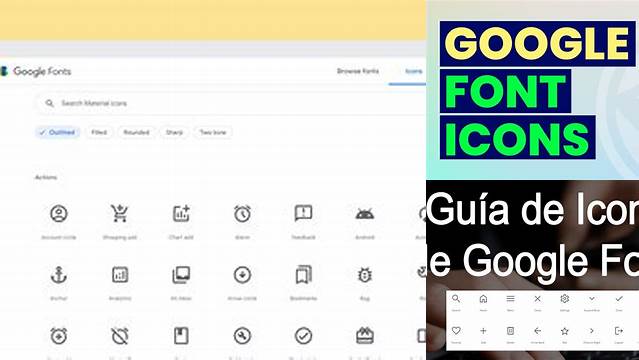
Google Fonts Icons: Easy Use With NPM
Hey guys! Ever wanted to add some slick icons to your web project but found the process a bit daunting? Well, you're in the right place! In this comprehensive guide, we'll dive deep into using Google Fonts Icons with NPM, making your workflow smoother and your website look fantastic. Google Fonts Icons are a fantastic resource, offering a vast library of icons that are easy to implement and customize. Using NPM (Node Package Manager) to manage these icons adds another layer of efficiency and control to your project. So, let's get started and explore how to make the most of Google Fonts Icons with NPM.
Why should you even bother with this? Well, imagine having access to thousands of icons right at your fingertips, all neatly packaged and ready to use in your web projects. No more hunting around for the perfect icon or dealing with messy SVG files. NPM makes it super easy to install, update, and manage these icons, keeping your project clean and organized. Plus, using Google Fonts Icons ensures that your icons look crisp and clear on any device, thanks to their scalable vector format. Ready to level up your icon game? Let's jump in!
What are Google Fonts Icons?
Before we get into the nitty-gritty of NPM, let's quickly recap what Google Fonts Icons are all about. Essentially, they are a collection of icons designed by Google, available for free use in your projects. These icons cover a wide range of categories, from basic UI elements to social media logos, making them incredibly versatile. What sets them apart is their design consistency and the fact that they are delivered as a web font. This means they scale perfectly without losing quality, ensuring your icons look sharp on any screen size. Think of them as the Swiss Army knife of icons – always reliable and ready for any task. Using Google Fonts Icons also means you're tapping into a well-maintained and frequently updated library, so you're always getting the latest and greatest icons.
Why Use NPM for Google Fonts Icons?
Now, why should you bother using NPM for your Google Fonts Icons? Good question! NPM is a package manager for Node.js, which might sound a bit techy, but trust me, it's a game-changer. It allows you to easily install, update, and manage project dependencies, including Google Fonts Icons. Instead of manually downloading and linking to the icon files, NPM handles all the heavy lifting for you. This means you can quickly add icons to your project with a simple command, and updating to the latest version is just as easy. Using NPM also helps keep your project organized and ensures that everyone working on the project is using the same versions of the icons. It's like having a personal assistant for your project dependencies, keeping everything in order and up-to-date.
Installing Google Fonts Icons Package
With your project set up, it's time to install the Google Fonts Icons package. This is where NPM really shines! In your terminal, make sure you're in your project directory, and then run the command npm install material-icons. This command tells NPM to download and install the material-icons package, which contains the Google Fonts Icons. NPM will automatically add the package to your project's dependencies, so you don't have to worry about manually managing the files. Once the installation is complete, you'll see a node_modules folder in your project directory, which contains all the installed packages, including the material-icons. It’s like having a well-stocked toolbox ready for any icon-related task. This installation process is quick and easy, thanks to NPM, and it sets the stage for using Google Fonts Icons in your project.
Using Google Fonts Icons in Your Project
Okay, now that we have Google Fonts Icons installed in our project, let's actually use them! This is where the magic happens. We'll cover how to link the icons in your HTML and how to display them on your page. The process is straightforward, and once you get the hang of it, you'll be adding icons like a pro. First, we need to link the CSS file that comes with the material-icons package in our HTML. This CSS file contains the necessary styles to display the icons correctly. Then, we can use the icon names to display them in our HTML. Think of it as plugging in the right wires to power up your icon display.
Linking the CSS File
To link the CSS file, you'll need to find the path to the material-icons.css file within your node_modules directory. Typically, it's located at node_modules/material-icons/iconfont/material-icons.css. In your HTML file, add a <link> tag within the <head> section to link this CSS file. The <link> tag should look something like this:
So there you have it, guys! A comprehensive guide to using Google Fonts Icons with NPM. We've covered everything from setting up your project to customizing and managing icons. By using NPM, you can streamline your workflow and keep your project organized. Google Fonts Icons provide a fantastic resource for adding scalable and customizable icons to your web projects. With the tips and best practices we've discussed, you're well-equipped to create stunning and user-friendly interfaces. Now, go forth and iconify your web projects! Remember, the key is to practice and experiment. The more you use Google Fonts Icons with NPM, the more comfortable and efficient you'll become. So, don't be afraid to try new things and push the boundaries of your icon design. Happy coding!